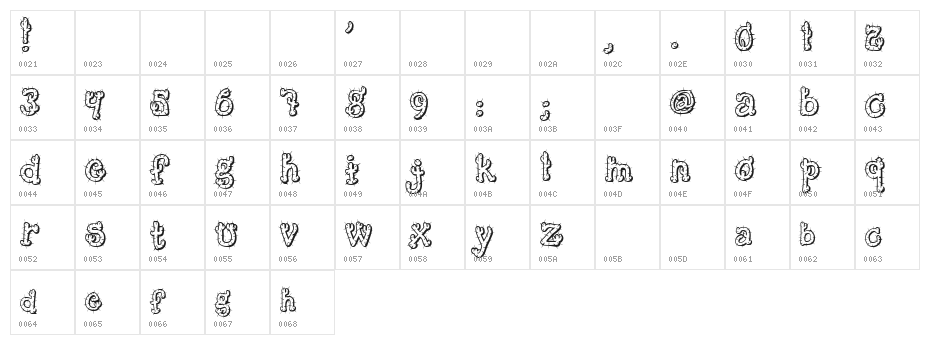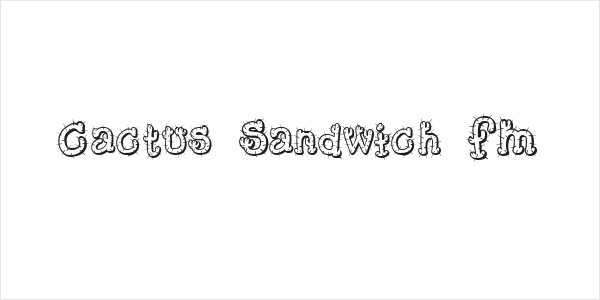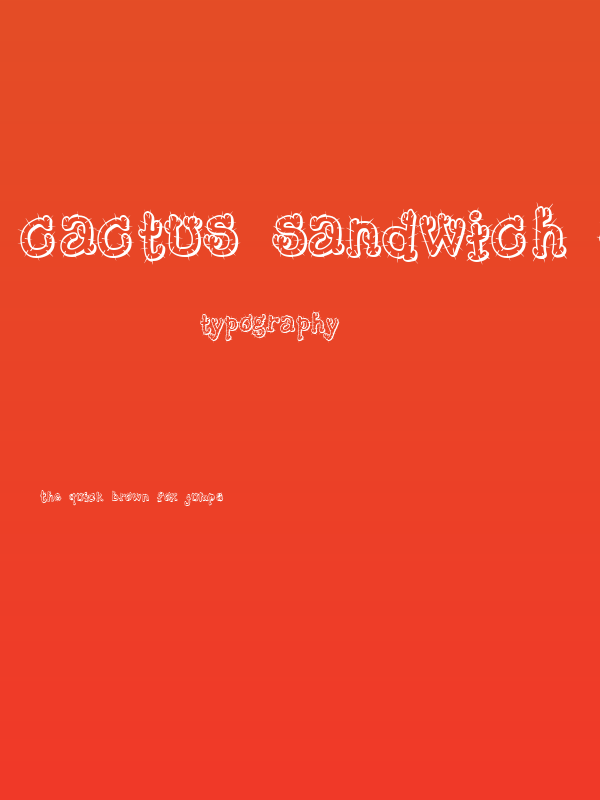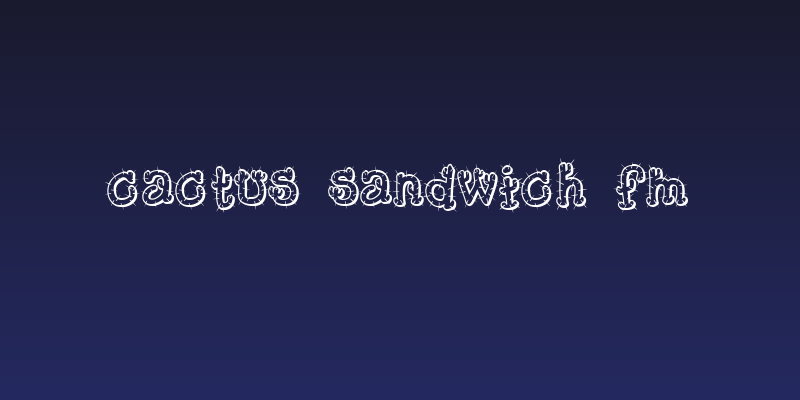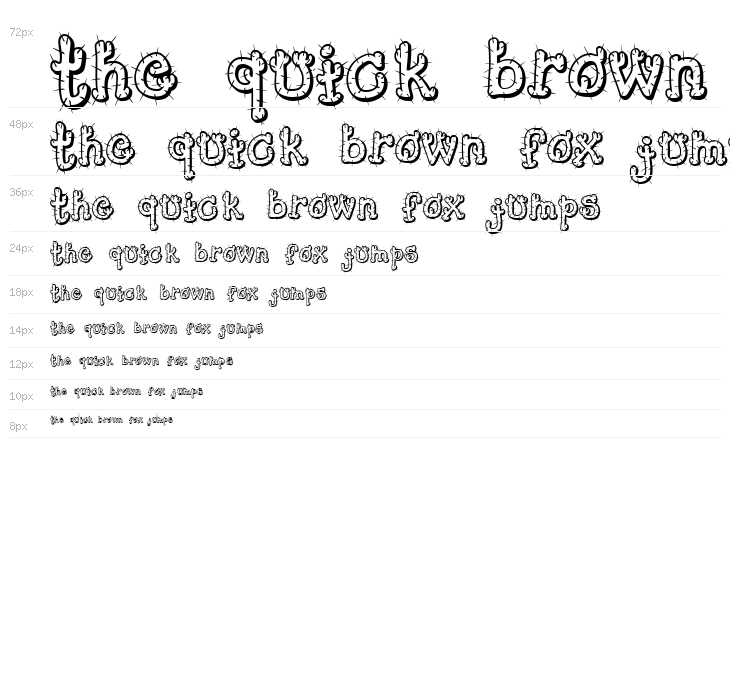
Cactus Sandwich FM Font
Cactus Sandwich FM Description
This font features a playful and decorative style, characterized by its unique cactus-like embellishments surrounding each letter. The letters are bold and rounded, with spiky accents that give them a whimsical, desert-inspired appearance. The font maintains a consistent weight across both uppercase and lowercase letters, as well as numbers and special characters. The overall design is eye-catching and distinctive, making it suitable for creative and themed projects. The spacing between characters is normal, allowing for readability while still maintaining its decorative flair.
| Proposed Projects | Ideal for themed event invitations, children's book covers, playful branding, or any project requiring a fun and unique typeface. |